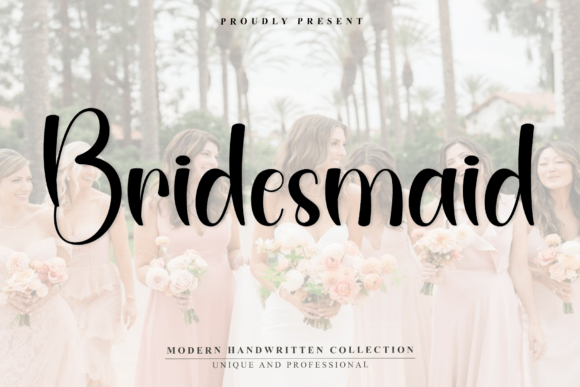
The Bridesmaid Font: A Stylish Handwritten Typeface for Creative Projects
Bridesmaid is a beautiful blend of organic charm and strong typographic presence. Its thick, solid strokes and distinct “bouncy” rhythm give it a friendly and approachable character, making it perfect for outdoor lifestyle branding, organic product packaging, travel-themed graphics, and rustic event invitations.
An Honest Review of Bridesmaid Font
What I Love About Bridesmaid ✨
• ✅ Unique and stylish handwritten design
• ✅ Well-balanced proportions for impact in busy designs
• ✅ Friendly and approachable character
• ✅ Perfect for outdoor lifestyle branding, organic product packaging, and travel-themed graphics
• ⚠️ Limited availability of stylistic alternates
• ⚠️ May not be suitable for very formal or corporate designs
The Story Behind Bridesmaid Font
Bridesmaid was designed with the intention of creating a unique and professional font that captures the essence of handmade and outdoor lifestyle designs. The designer’s inspiration came from traditional handwritten fonts, with a modern twist to make it suitable for a wide range of creative projects.
Q: Does Bridesmaid have OpenType features?
A: Yes, Bridesmaid has some OpenType features, including glyphs and stylistic alternates.